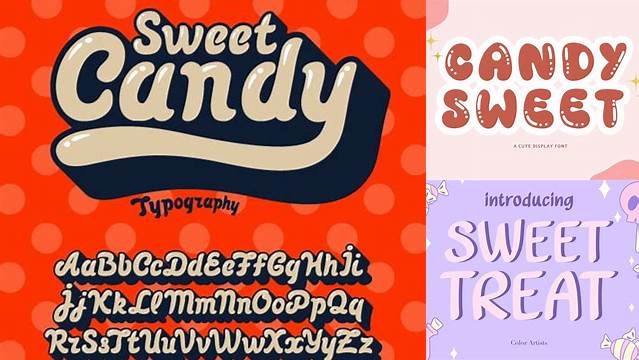
Hey guys! Are you looking to add a touch of whimsy and sweetness to your designs? Look no further! In this article, we're diving deep into the world of paper candy fonts, exploring why they're so popular, where you can find them for free, and how to use them to create stunning visuals. So, grab your favorite snack and let's get started!
What is Paper Candy Font?
Before we jump into the free downloads, let's understand what exactly a paper candy font is. Essentially, it's a typeface that mimics the look and feel of candy wrappers, often with playful curves, bright colors, and a slightly crinkled or textured appearance. Think of the fonts you might see on a candy store sign or the packaging of your favorite sweets. These fonts are designed to evoke feelings of joy, nostalgia, and fun, making them perfect for a wide range of creative projects.
Paper candy fonts aren't just about aesthetics; they also carry a certain emotional weight. They remind us of childhood, celebrations, and simple pleasures. This makes them incredibly effective for marketing materials targeting families, children, or anyone with a sweet tooth. The visual appeal, combined with the emotional connection, can significantly boost engagement and memorability. Imagine using a paper candy font for a birthday invitation – it instantly sets the tone for a festive and cheerful event!
Moreover, the versatility of paper candy fonts is a major draw. While they’re commonly associated with confectionery and children's themes, they can also be used in more unexpected ways. For instance, a bold paper candy font could add a playful contrast to a serious design, creating a unique and memorable visual statement. The key is to use them judiciously and thoughtfully, ensuring that the font complements the overall message and design.
Why Choose Paper Candy Fonts?
Paper candy fonts offer a unique blend of fun and functionality. They're eye-catching, memorable, and can add a distinct personality to your projects. Whether you're designing a logo, creating social media graphics, or working on a print campaign, a paper candy font can help you stand out from the crowd. They're particularly effective for projects targeting children or those with a playful sensibility.
Another reason to choose paper candy fonts is their ability to convey a sense of approachability. In a world where brands are constantly vying for attention, a friendly and inviting typeface can make all the difference. Paper candy fonts exude warmth and cheerfulness, making them ideal for businesses looking to build a connection with their audience. Think about how a paper candy font on a bakery’s menu can instantly make the offerings seem more tempting and delicious!
Furthermore, the creative possibilities with paper candy fonts are endless. You can combine them with various design elements, such as bright colors, whimsical illustrations, and playful patterns, to create a truly unique and engaging visual experience. They also work well with other font styles, allowing you to create interesting contrasts and visual hierarchies. Experimenting with different combinations can lead to unexpected and delightful results.
Where to Find Free Paper Candy Fonts
- Dafont: This is a massive online archive with a huge selection of free fonts, including many paper candy-inspired designs. Just search for "candy" or "bubblegum" to find some great options.
- Fontspace: Similar to Dafont, Fontspace offers a wide variety of free fonts, with user-friendly categories and search filters to help you narrow down your options.
- Google Fonts: While Google Fonts doesn't have a specific "paper candy" category, you can often find fonts with similar characteristics, such as rounded shapes and playful designs. Plus, Google Fonts are super easy to use and integrate into your web projects.
When downloading free fonts, it's always a good idea to double-check the license to ensure that you're allowed to use them for your intended purpose. Some fonts may be free for personal use but require a commercial license for business projects. Paying attention to these details will help you avoid any potential legal issues down the road. Also, be sure to download fonts from reputable sources to avoid malware or other security risks.
Using Paper Candy Fonts in Your Designs
Now that you've got your hands on some free paper candy fonts, it's time to put them to work! Here are a few tips and ideas for using them effectively in your designs:
- Logos and Branding: A paper candy font can be a great choice for businesses that want to project a fun and playful image, such as candy stores, toy shops, or children's party planners.
Conclusion: Embrace the Sweetness of Paper Candy Fonts
So there you have it, guys! A comprehensive guide to paper candy fonts, from what they are and why they're so awesome to where you can find them for free and how to use them effectively in your designs. Remember to always check the license before using a font and to use them judiciously to avoid overwhelming your designs. Now go forth and create some sweet and memorable visuals!